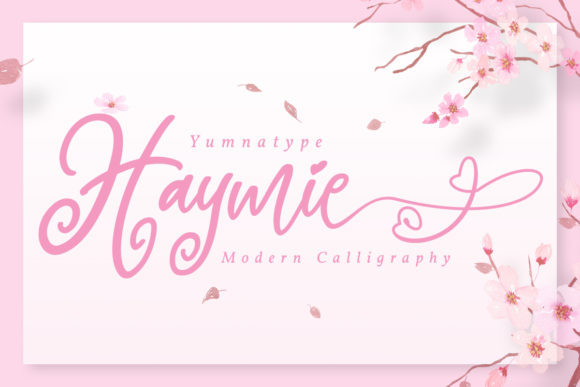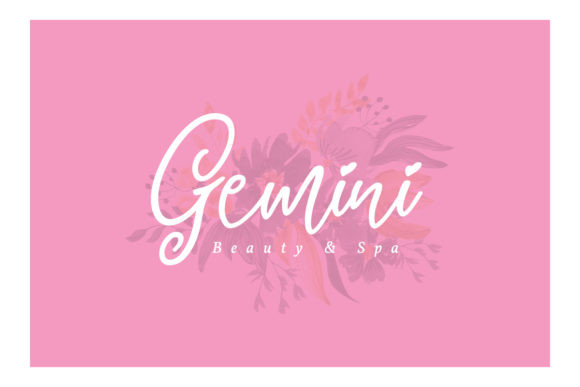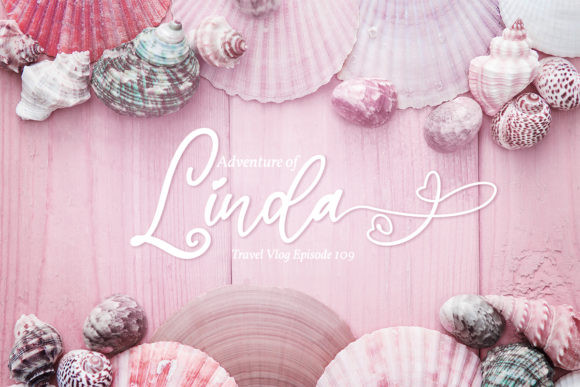
Haymie Font
Haymie is a cute and casual handwritten font with an incredibly friendly feel. It features gorgeous swashes and ligatures that make this script incredibly versatile. Whether you’re looking for fonts for Instagram or calligraphy scripts for DIY projects, Haymie will turn any creative idea into a true piece of art!